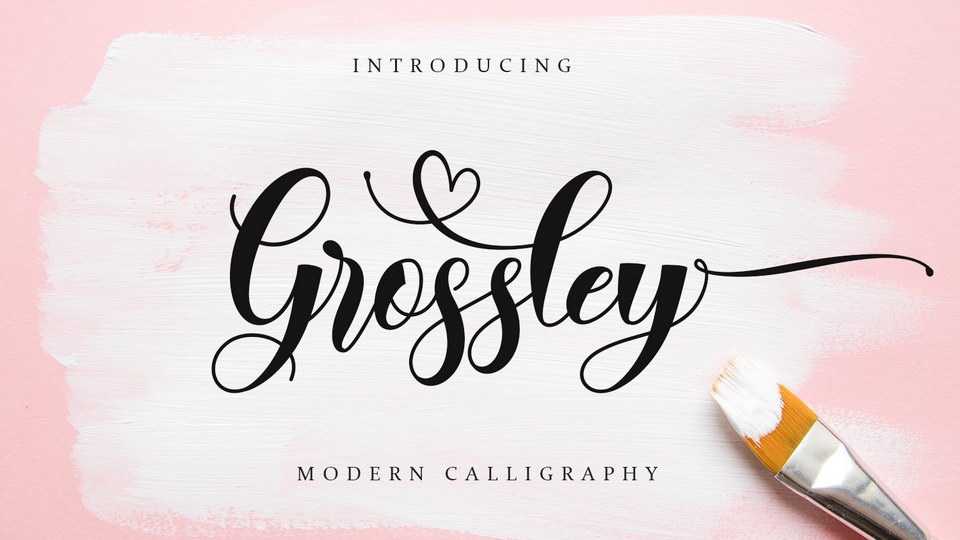
Download Grossley font, a modern and elegant calligraphy typeface that features cute ligatures and swashes. Grossley will elevate a wide range of projects to the highest level.
Designer: Naharstd